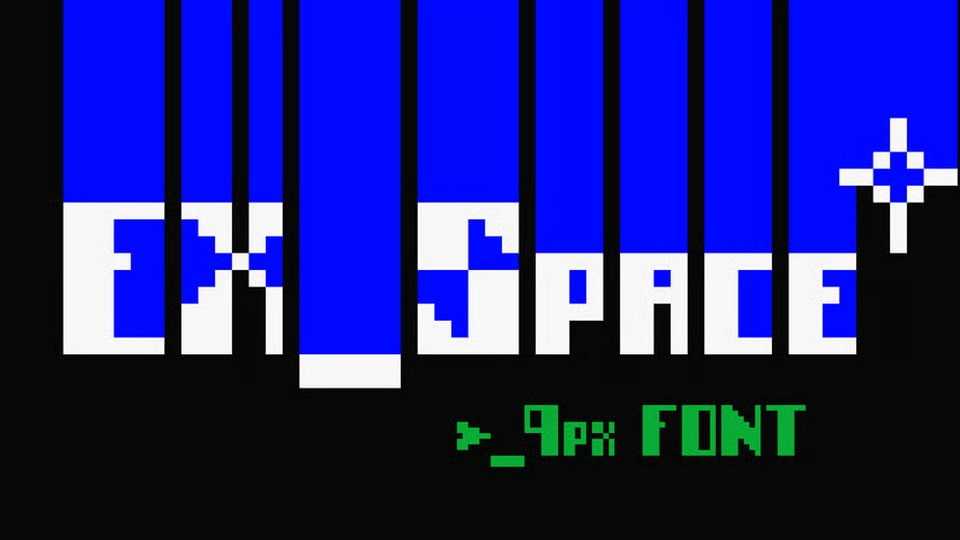
Download EX_Space font, a heavy, futuristic, narrow, display pixel typeface — 9px tall in base. Pixel-Perfect = great functionality in game engines and pixel editors like Aseprite, Pixquare etc.
Designer: WQON Type